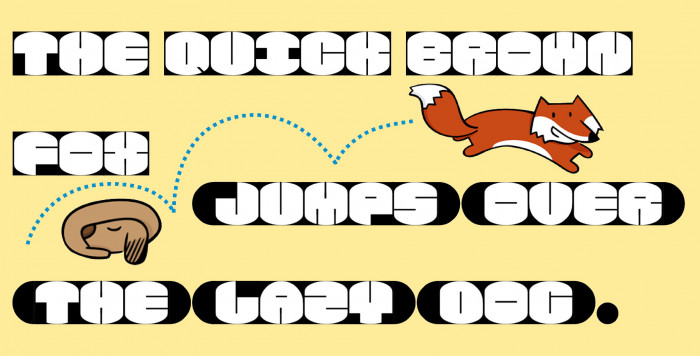
Two-in-one fontstruct. This can be used directly like any other font or... you can also add it some special: rounded beginning and end of words! (typing without spaces "<" before writing the word and ">" when you finish it and using "\" as the space). Enjoy it, please.